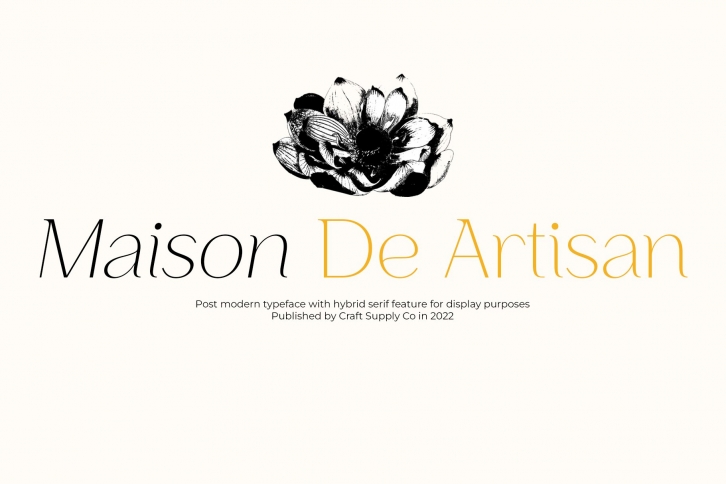
Maison De Artisan is a beautiful font that was designed by Craft Supply Co.. It's a great choice for designers and creatives who need such a font. It was released on September 24, 2022 and the file size is 16.48 MB. Maison De Artisan may give a more youthful, expressive and casual look to your project. It is a very beautiful, refined, elegant, and high-quality font.